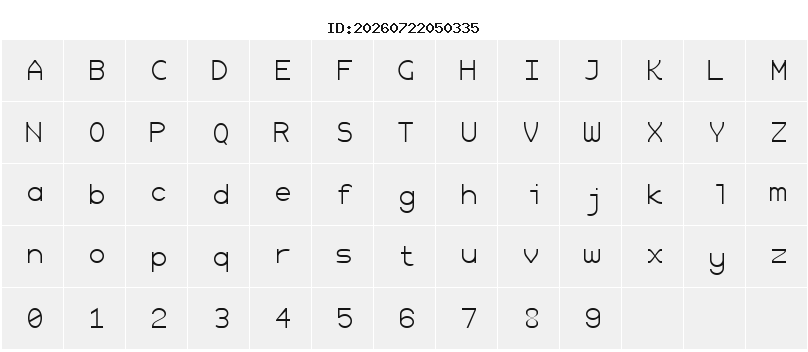
• Font Name: HyperFont
• Full Font Name: HyperFont
• Version: 1.0 Tue Feb 02 12:50:21 1993
About HyperFont.ttf
HyperFont.ttf is a modern, elegant sans-serif font designed for ultimate readability and visual harmony. Perfect for branding, headlines, web design, and print materials.